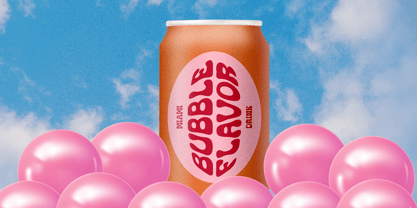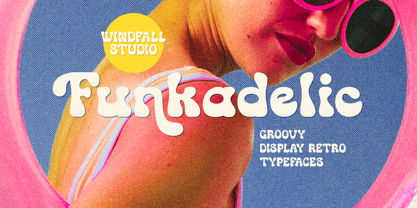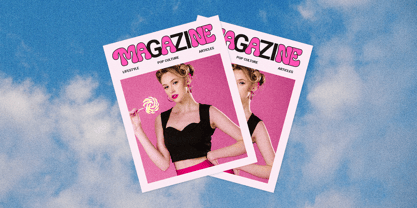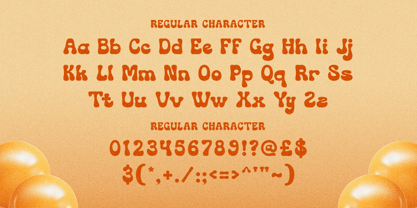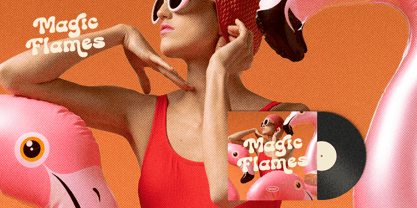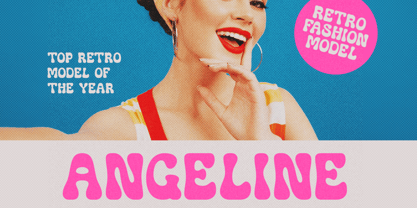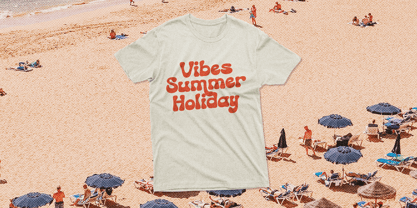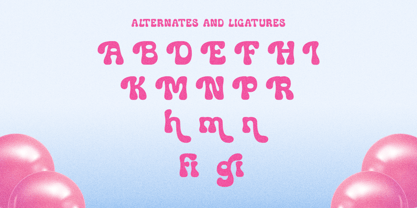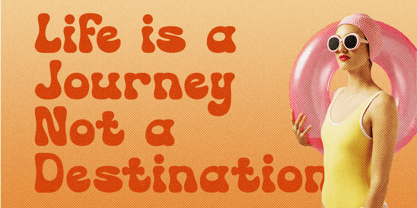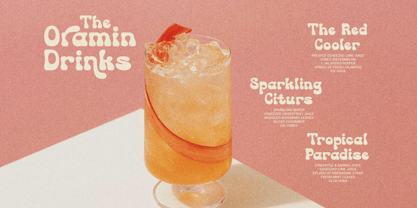
Funkadelic
The Funkadelic Font Family was designed by Anggia Putri Premitasari and published by Windfall Studio. Funkadelic contains 1 styles. More about this family
Funkadelic - Vintage Retro Font
Funkadelic is a font that brings a strong vintage retro touch. Designed with distinctive details from the retro era, this font offers a funky and energetic vibe for your design projects. Perfect for titles, posters, branding, merchandise, and more. Comes with various alternate characters to add interesting variations